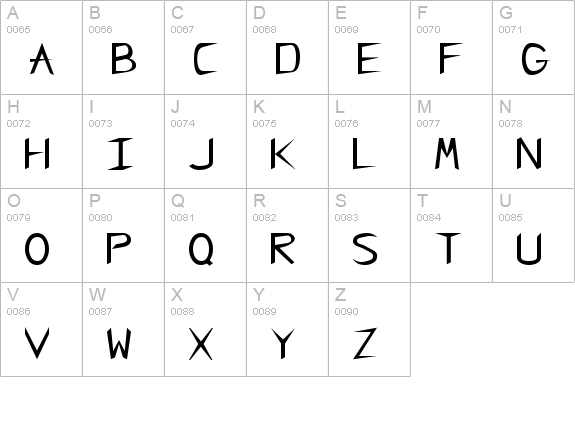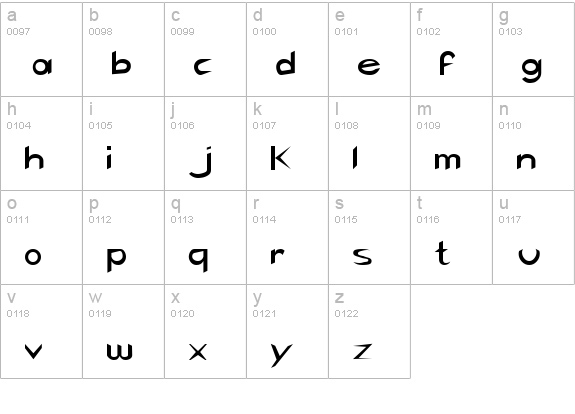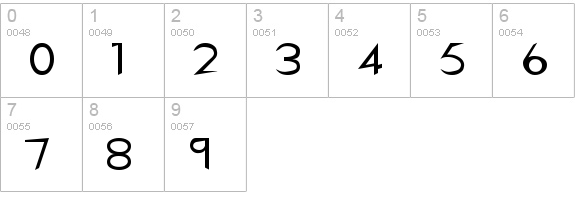
CharlieChan Regular is the standard, neutral variant in the CharlieChan typeface family \xE2\x80\x94 well suited to general body text, paragraphs, and standard typographic work.
Introducing CharlieChan Regular font, a versatile and modern typeface that is perfect for a wide range of design projects. This elegant font features clean lines and a classic style that will enhance any text or graphic it is applied to. Whether you are creating a logo, website, or printed materials, CharlieChan Regular font is sure to make a lasting impression. What's even better is that CharlieChan Regular font is available for free download at FontsMarket.com. This means you can easily access this high-quality font without any cost, allowing you to elevate your designs without breaking the bank. Don't miss out on the opportunity to add CharlieChan Regular font to your font library today!